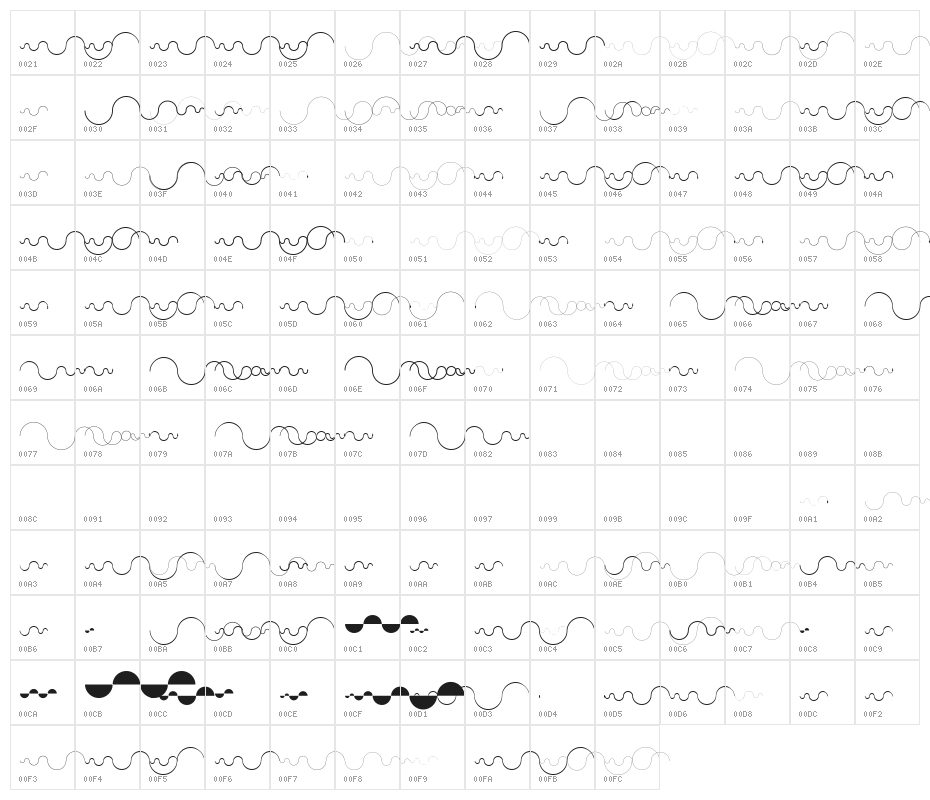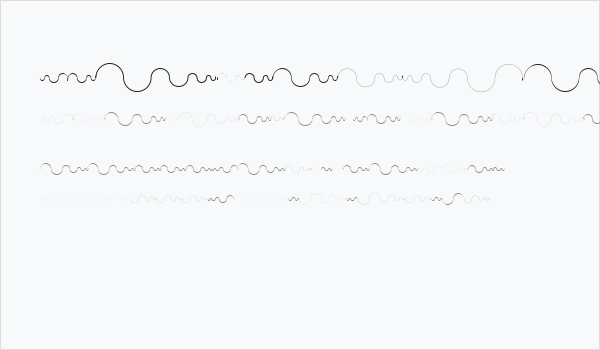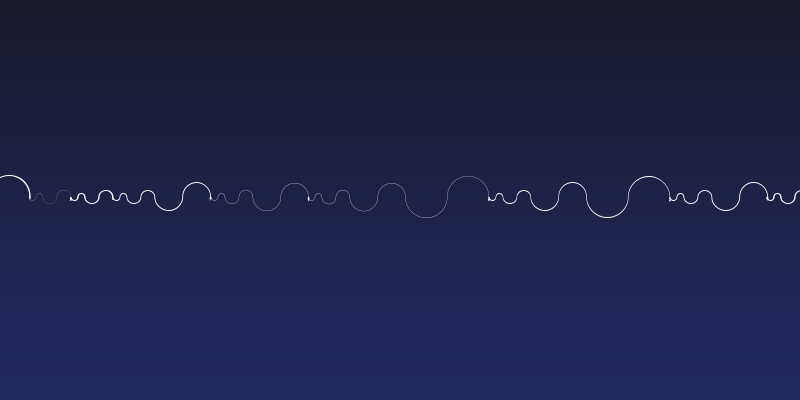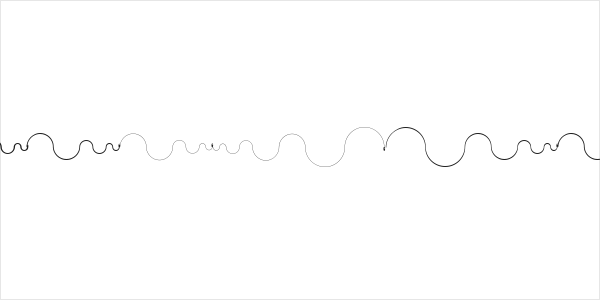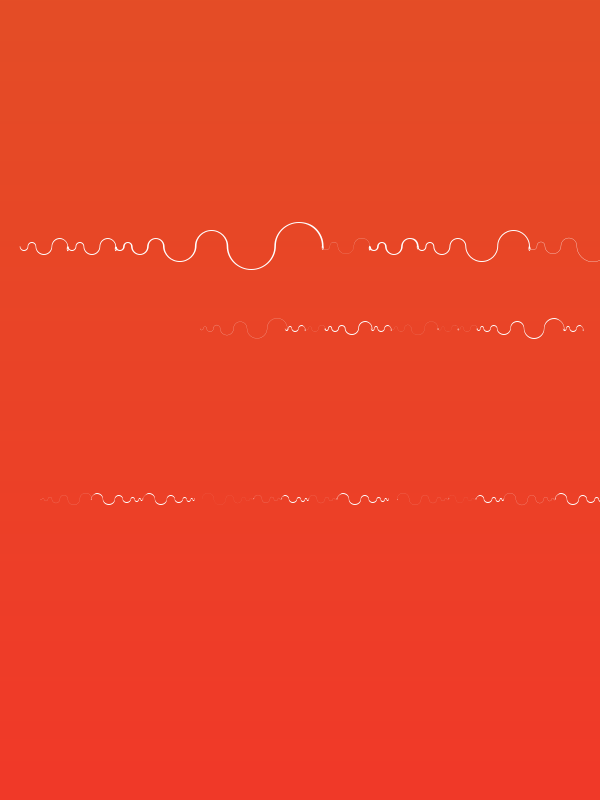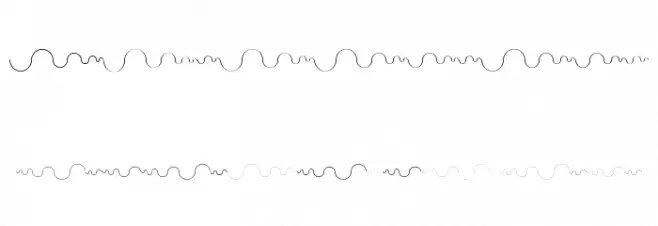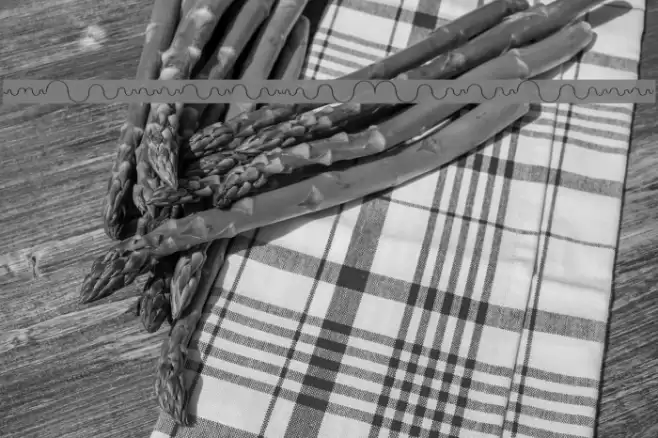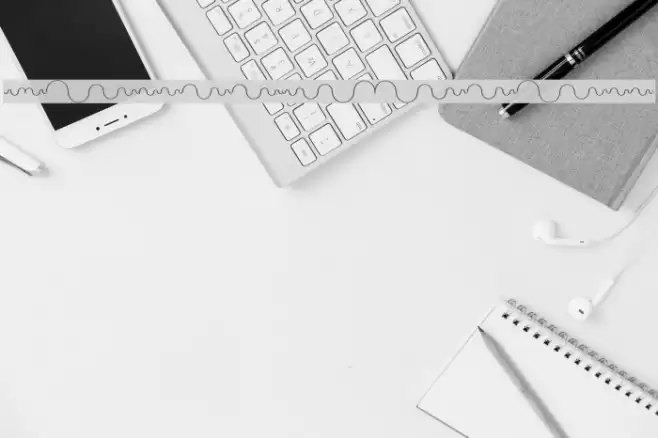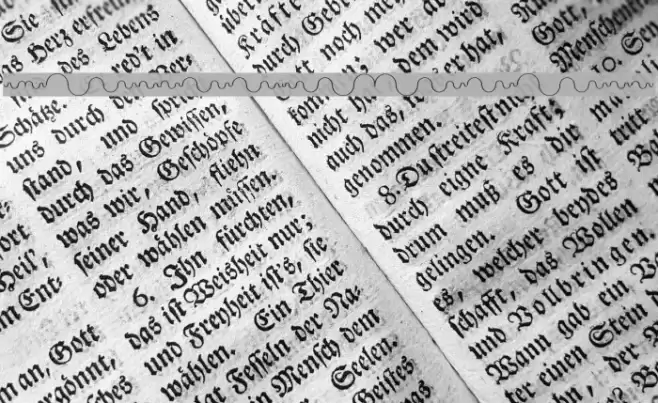
DynamicBeings Font
DynamicBeings Description
This is not a valid font. The image displays a series of wavy lines that do not form recognizable characters or symbols typically associated with a font. Fonts are usually composed of distinct letters, numbers, and punctuation marks that can be used for writing and design purposes. The content here lacks the necessary elements to be considered a font.